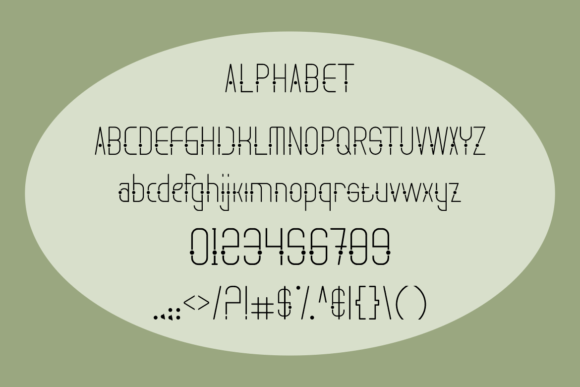
Unlock Your Creative Potential with Adregod Font
There’s nothing quite like the thrill of staring at a blank canvas, waiting for inspiration to strike. As a designer, you’ve probably been there – the cursor blinks, the blank page stares back, and you’re left wondering where to begin. But what if I told you that the key to unlocking your creative potential lies in a single, stylish font?
Enter Adregod Font, a cool and unique sans serif display font designed to take your creative projects to the next level. Whether you’re working on a bold new logo, a striking headline, or a captivating body text, Adregod Font is the perfect addition to your design arsenal. With its sleek, modern aesthetic, this font is a valuable asset for designers looking to add a touch of sophistication and flair to their work.
Adregod Font Key Features
- Font Family: Adregod Font is a modern sans-serif font with a unique blend of futuristic and minimalist styles.
- Unique Characteristics: Adregod Font features a distinctive geometric shape with rounded edges, giving it a friendly and approachable feel. The font also includes a range of ligatures and alternates to enhance its versatility.
- Language Support: Supports over 200 languages, including Latin, Cyrillic, and Greek scripts, making it an ideal choice for multilingual projects.
Adregod Font Review
First off, I have to say that I was really excited to try out the Adregod font. ✨ The overall aesthetic is modern and edgy, which I think could be a great fit for a lot of projects. The font has a unique, almost hand-drawn feel that sets it apart from some of the more generic sans-serif fonts out there.
Some of the things that work well with Adregod include:
- ✨ The bold weight is incredibly versatile and can be used for headings or emphasis.
- ✨ The font has a great range of sizes, making it easy to use in a variety of contexts.
- ✨ The unique design elements, such as the irregular letterforms, add a lot of visual interest to text.
- ⚠️ The font may not be the best choice for small text sizes, as the irregular letterforms can make it difficult to read.
- ⚠️ Some of the letterforms may be more suitable for display use than body text, depending on the specific project.
- ⚠️ The font may require some additional tweaking to get it to work well in certain contexts, such as on mobile devices or in low-resolution environments.
Overall, I think Adregod is a solid choice for designers looking for a modern, edgy font. While it may have some limitations, it’s definitely worth considering for the right project.
Tips for Getting the Most Out of Adregod Font
To get the most out of Adregod Font, use it in combination with bold or italic text to add emphasis to your text elements. You can also use it in conjunction with other fonts to create a unique and visually appealing design.
Adregod Font is commonly used in graphic design, branding, and typography projects. It’s particularly useful for creating bold and eye-catching headlines or titles.
Alternatives to Adregod Font
Arial Black is a sans-serif font that is similar to Adregod Font in its bold and modern appearance. It is ideal for use in headings, titles, and other areas where a strong, attention-grabbing font is needed. Compared to Adregod Font, Arial Black has a more rounded and friendly feel, making it a good choice for designs that require a softer tone.
Impact is a sans-serif font that is often used for titles and headings due to its bold and dramatic appearance. It is similar to Adregod Font in its strong, attention-grabbing feel, but has a more geometric and angular shape. Impact is a good choice for designs that require a sense of urgency or importance.
Does Adregod support Unicode characters?
Yes, Adregod supports Unicode characters up to Unicode 14.0, covering most languages and scripts. However, it’s essential to note that some characters might not display correctly in certain fonts or operating systems.
What is the recommended line height for Adregod?
The recommended line height for Adregod is 1.2 to 1.5 times the font size. This will ensure proper spacing between lines and improve readability. However, feel free to experiment with different line heights to achieve the desired visual effect.